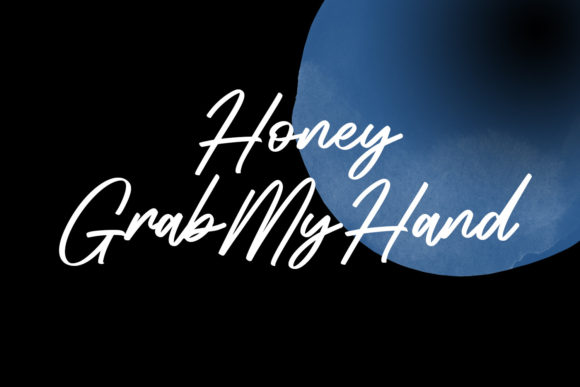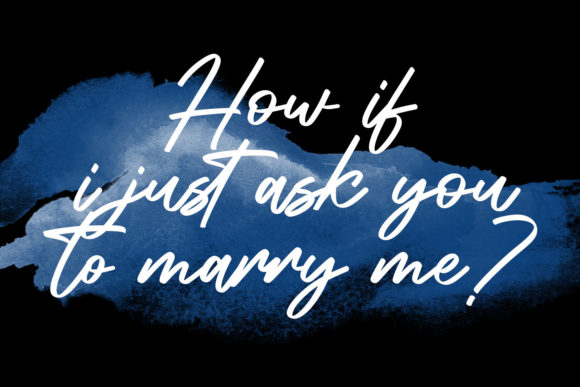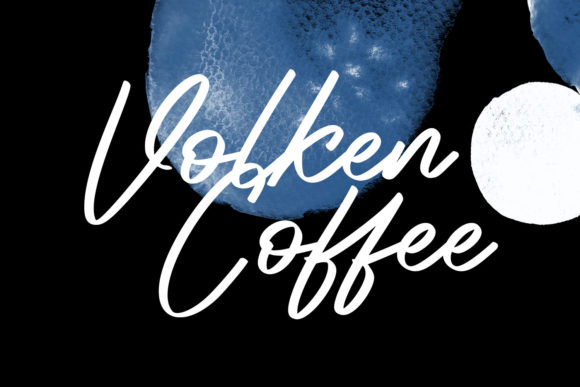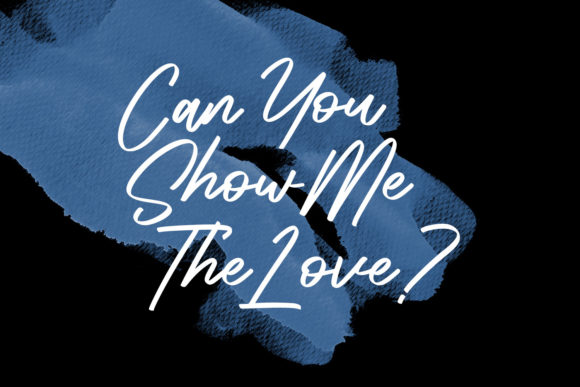
Rithmycs Script Font Font
Rithmycs is a fancy and paint brushed script font. It features medium contrast strokes, fun characters, ligatures and alternates. It will look extraordinary in a variety of contexts.